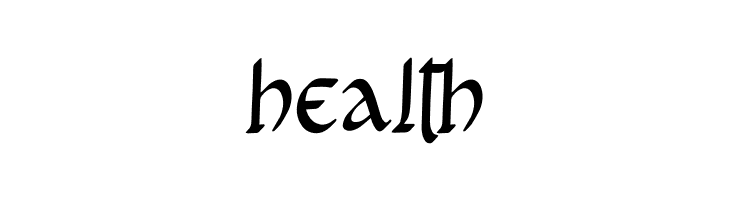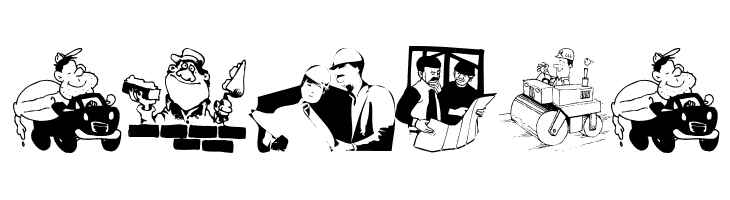
A bold, slab serif font with a vintage yet modern appeal.
A bold, textured font with a playful and dynamic appearance.
A collection of whimsical and playful doodles, each with a unique, hand-drawn illustration.
A bold, distressed font with a rugged, handmade appearance.
A bold, geometric font with high contrast and sharp angles, perfect for dramatic designs.
A classic, calligraphic font with elegant, angular strokes.
A dynamic script font with fluid, sweeping strokes and a modern calligraphic style.
The image contains construction-themed illustrations, not a font.
A classic serif font with elegant strokes and balanced proportions.